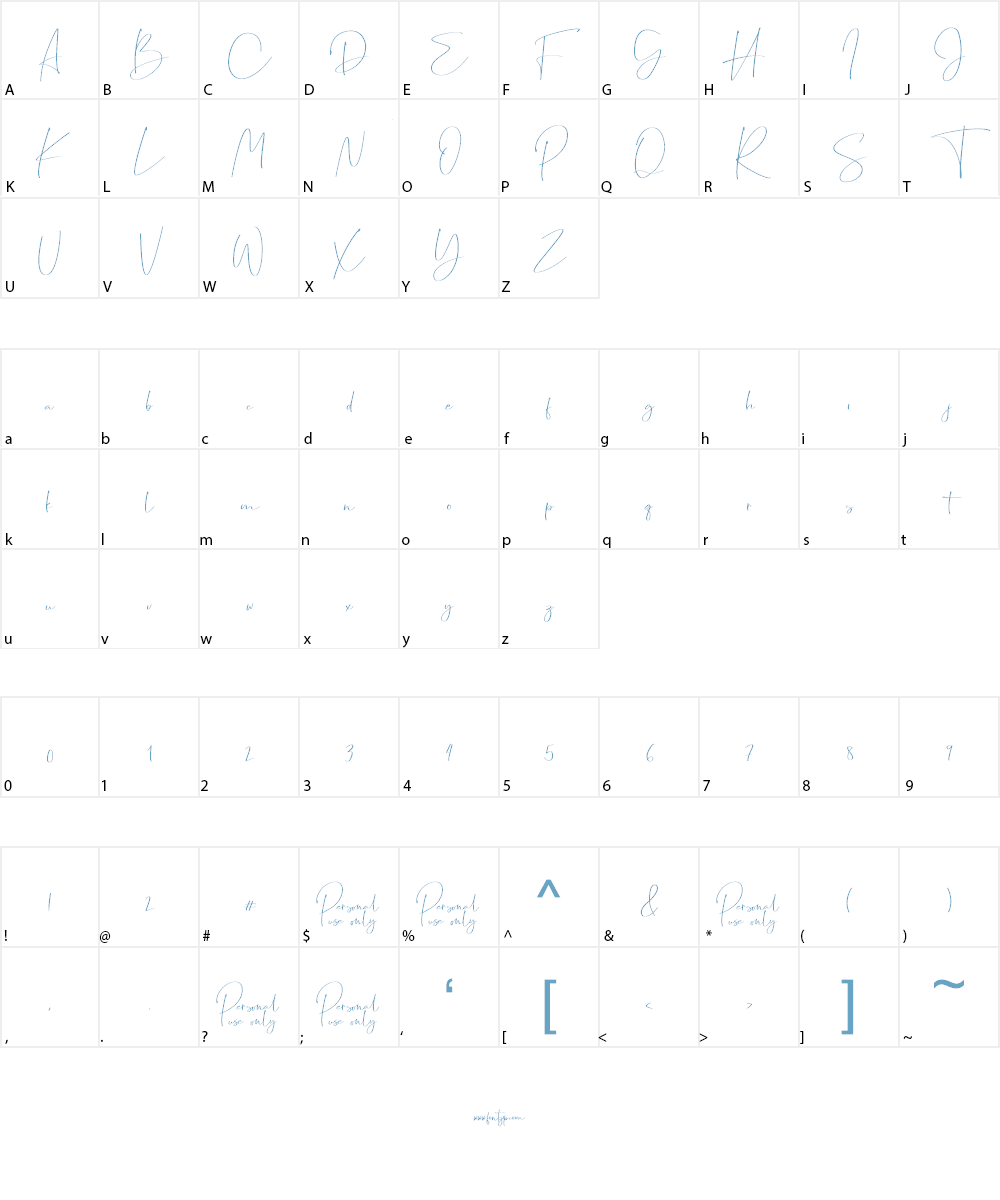
Jasmine Signature
Aloha! Jasmine – is a handwritten signature font
Fonts include punctuations and multilingual support. Jasmine is perfect for branding, photography, invitations, quotes, watermarks, advertisements, product designs, labels, and much more!